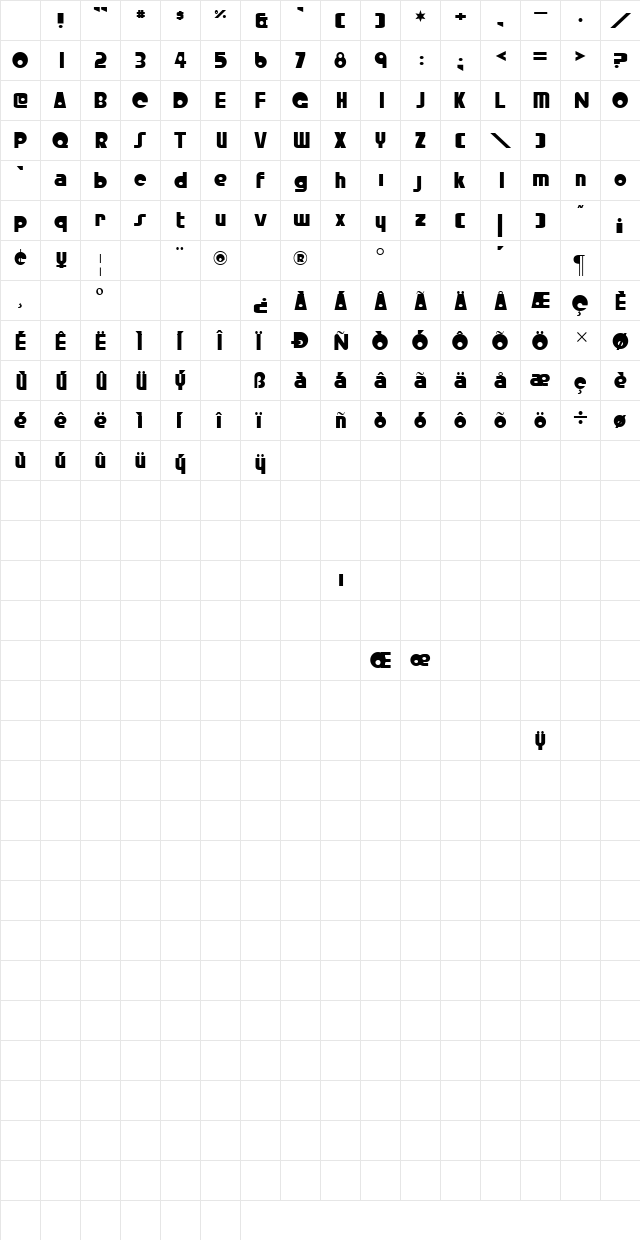
Complete Crystal Radio Kit Regular glyph index. Displaying only characters natively supported by Crystal Radio Kit Regular font.
Crystal Radio Kit is a composed and adaptable typeface that performs quietly and consistently across a wide range of design contexts.